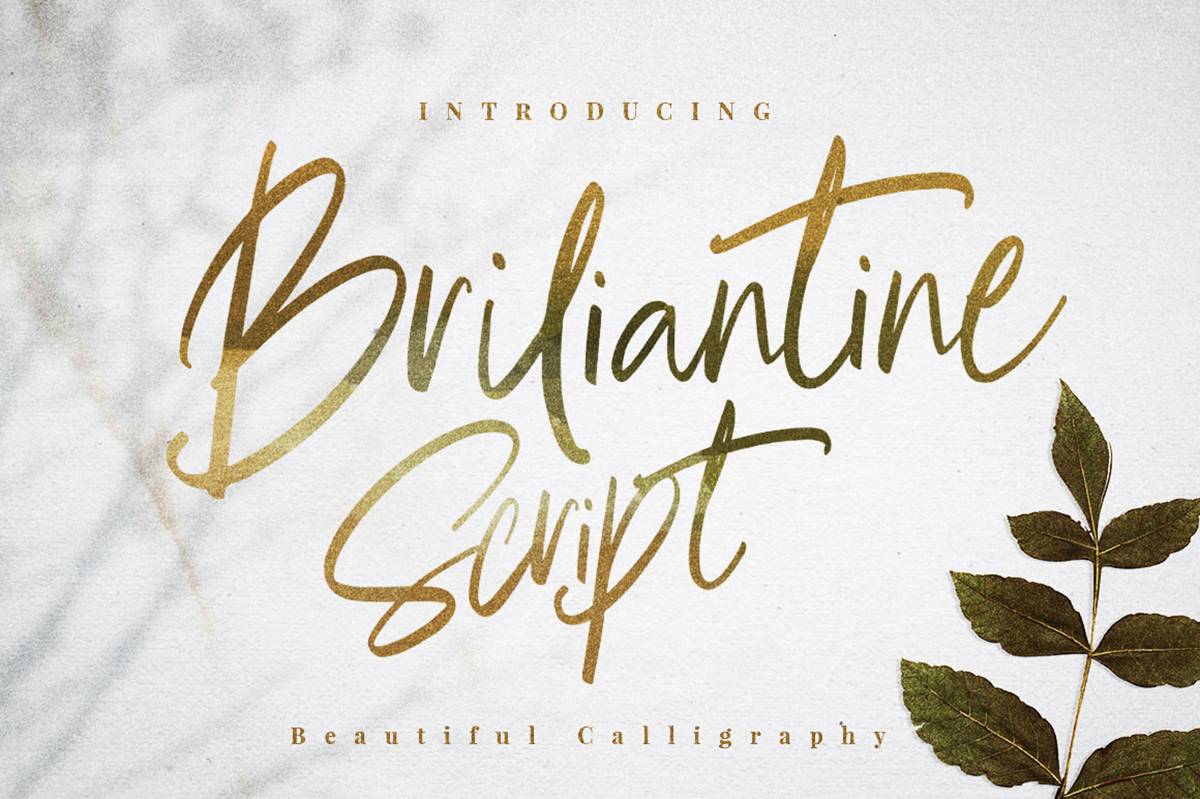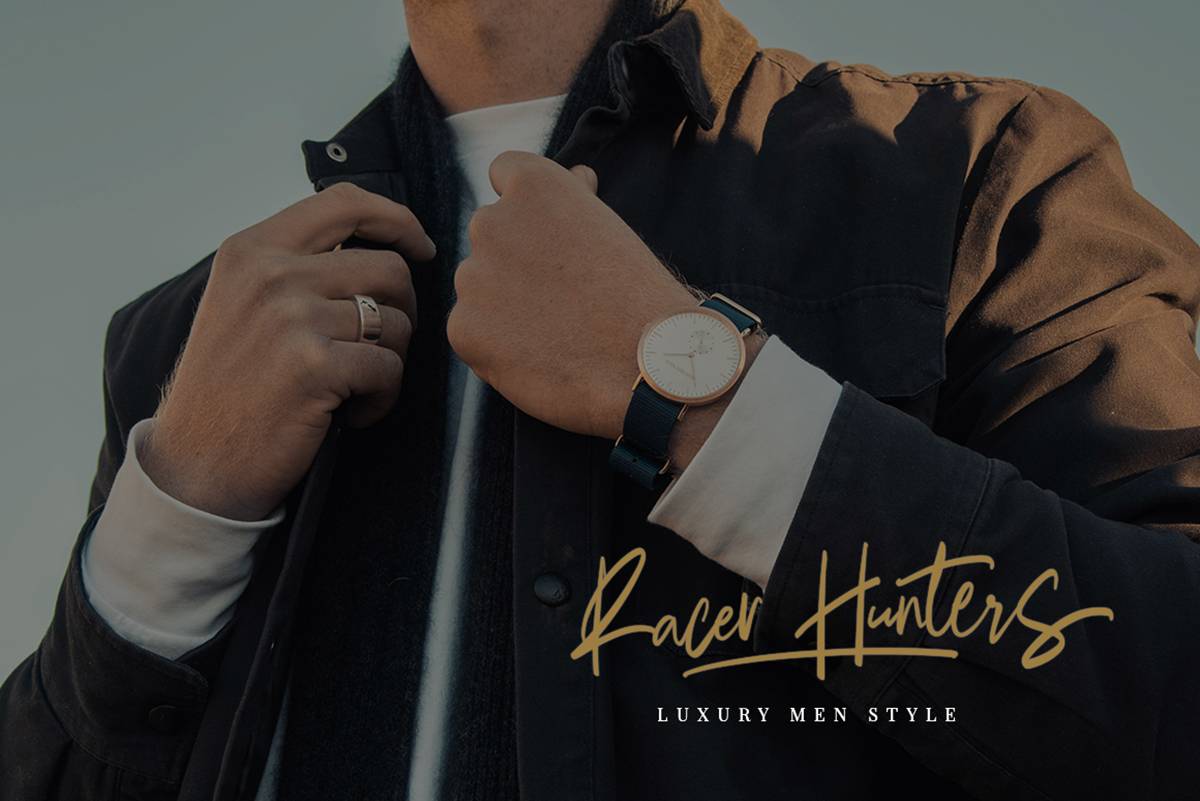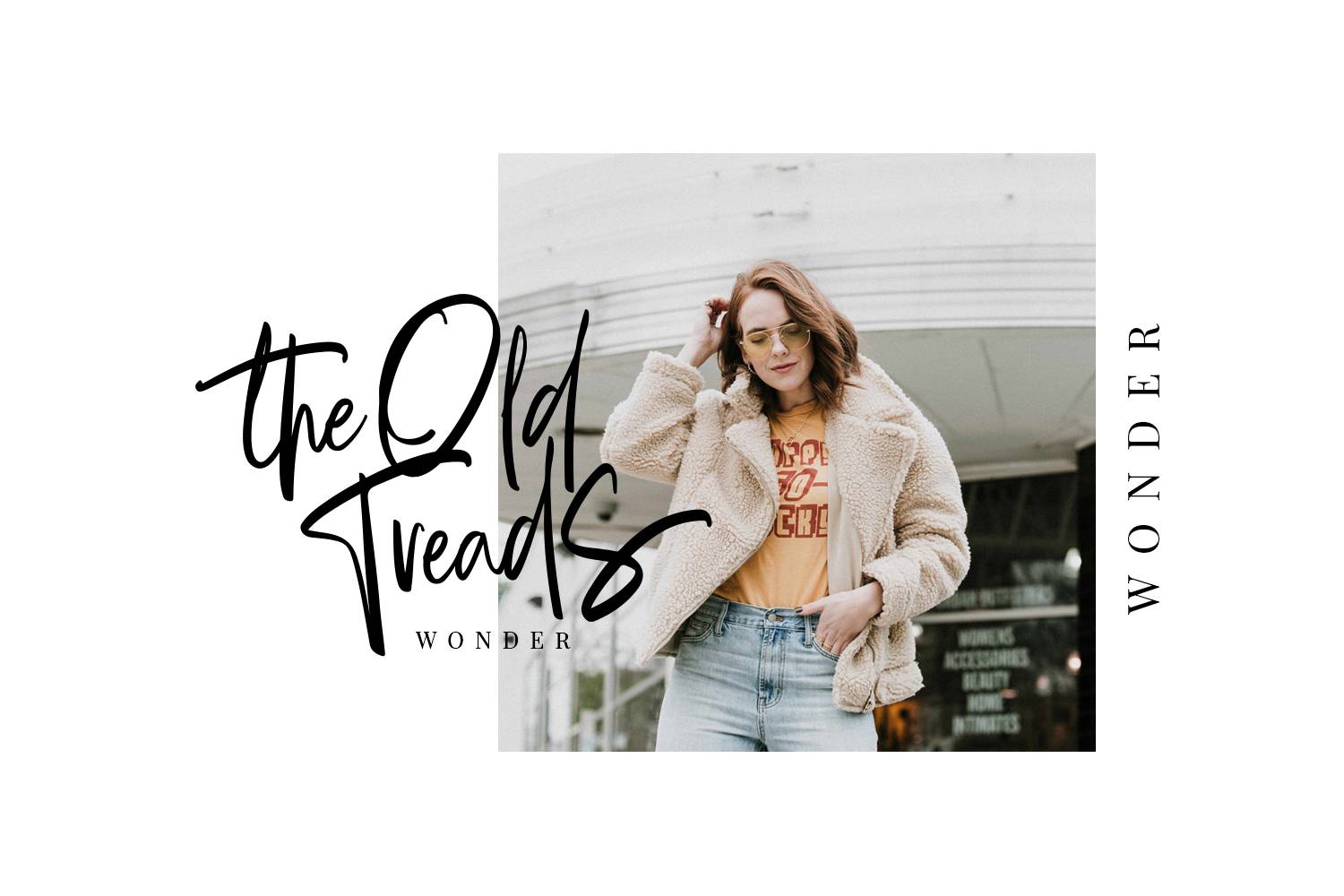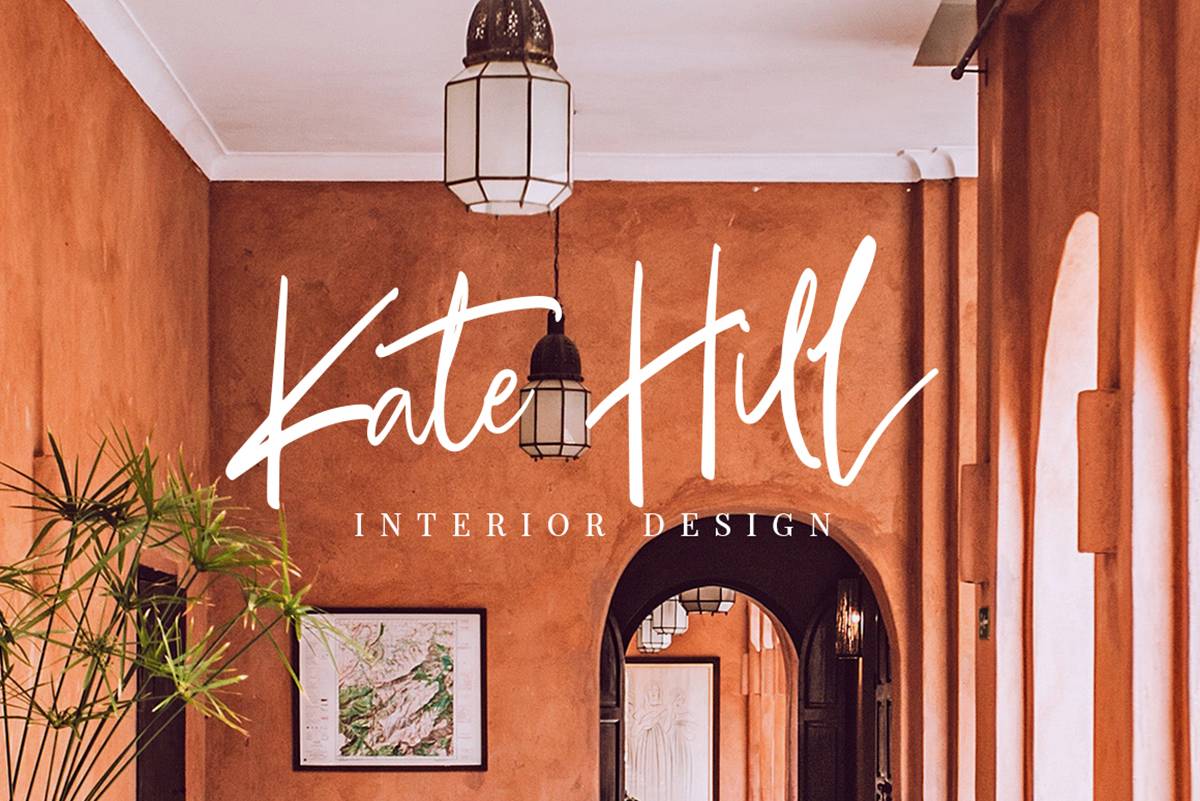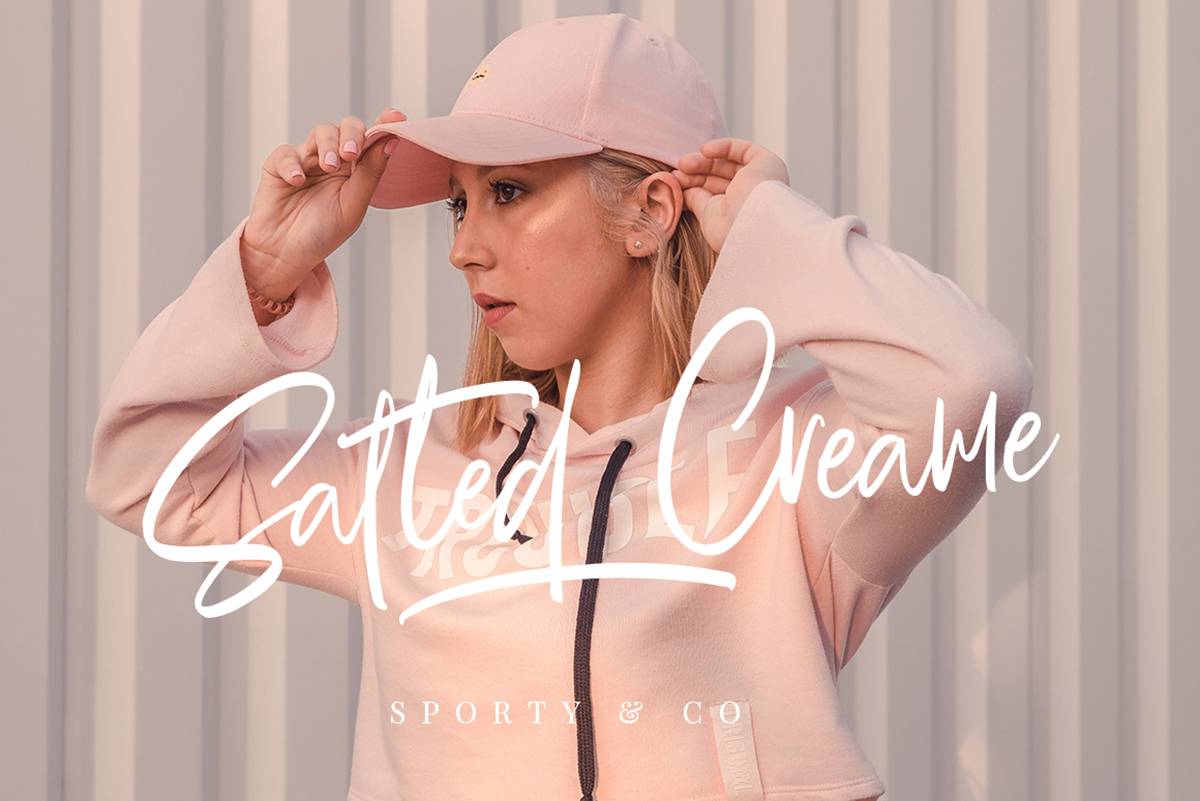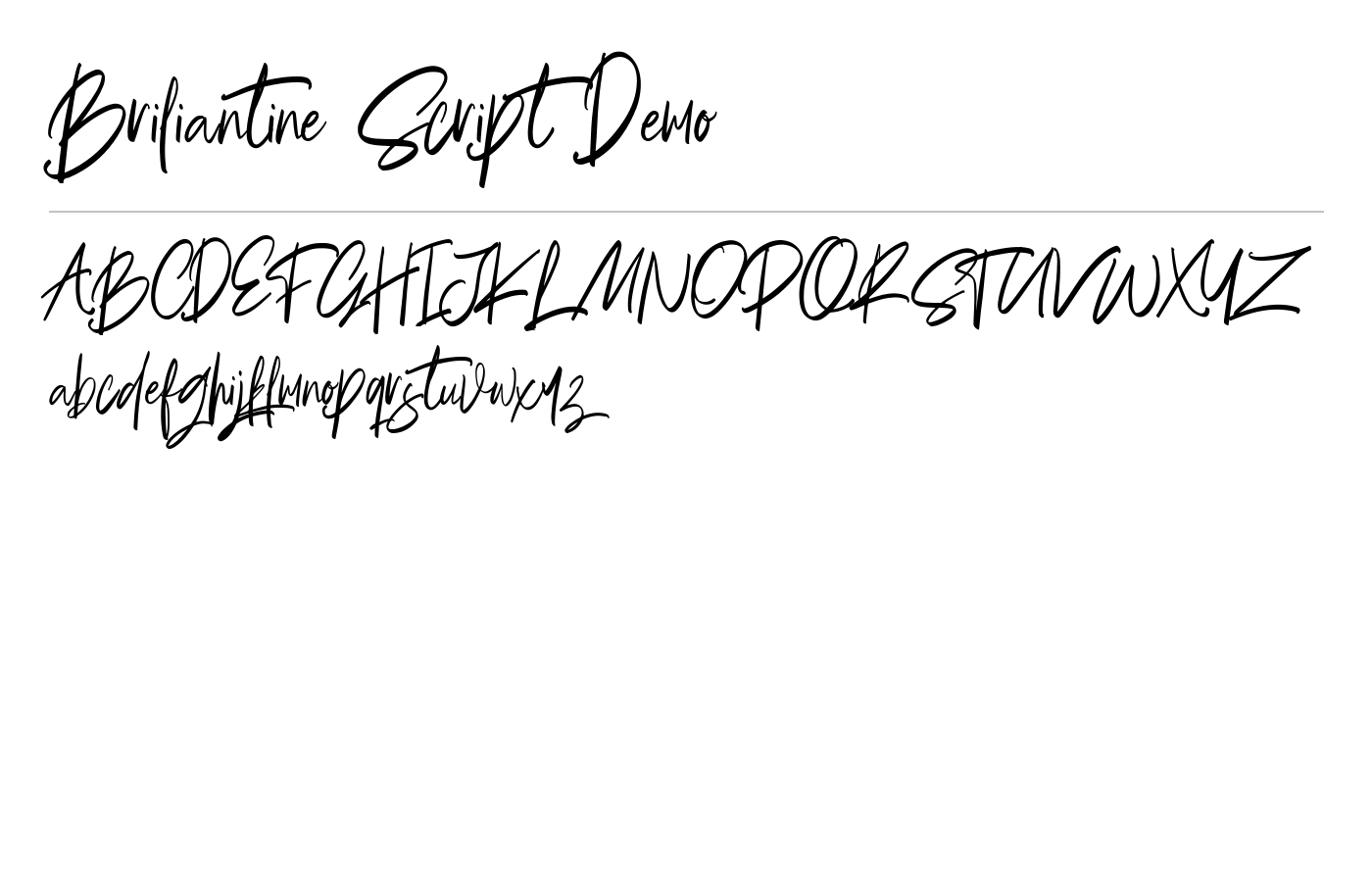
Briliantine is a lively and expressive handwritten script font characterized by its playful, slightly irregular strokes and tall letterforms. With its energetic, informal style and dynamic flow, it adds a personal, creative touch ideal for artistic branding, invitations, and social media graphics. Its casual elegance makes it perfect for projects that want to feel approachable yet stylish.
Briliantine Font
About Briliantine Font
| Font family | Briliantine Font |
| Designer | Putra Khan |